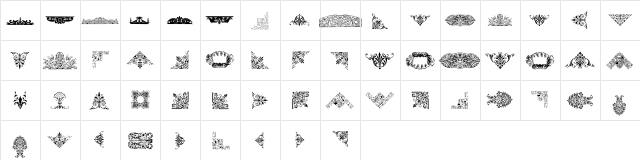
Victorian Free Ornaments Regular
Design Context for Victorian Free Ornaments Typeface
Victorian Free Ornaments brings ornamental detail and strong personality to headlines and identities, where visual impact matters more than quiet functionality.
Font Pairing: Pair with a clean neutral sans-serif for body copy to let Victorian Free Ornaments's character lead without overwhelming the composition.
Pro Tip: Treat Victorian Free Ornaments as the centrepiece of your typographic hierarchy. One strong heading set in a decorative face can carry an entire layout.